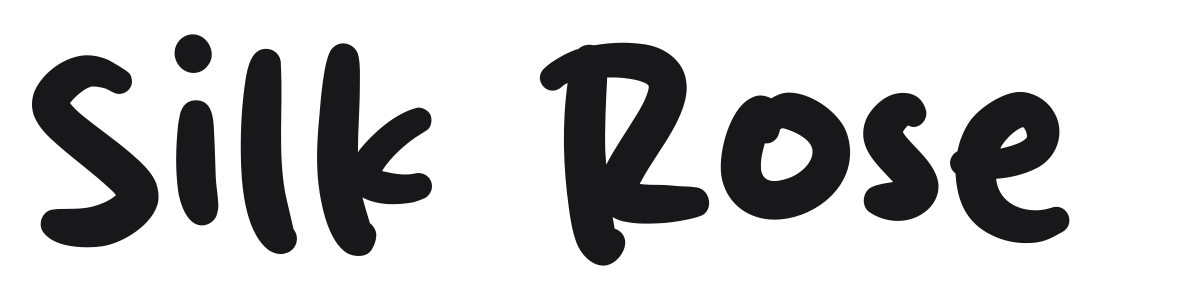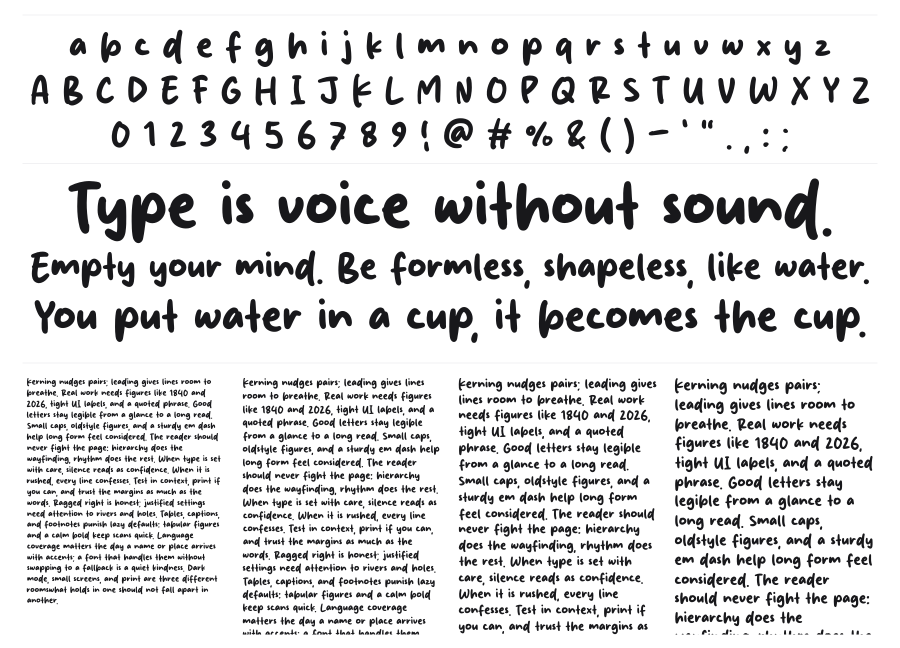
Silk Rose
Silk Rose is a bold casual brush script with chunky rounded strokes and a natural hand-painted rhythm. The thick monoweight forms feel energetic and approachable, landing somewhere between a marker and a paintbrush. It reads strongly at display sizes and carries a relaxed, contemporary warmth that suits lifestyle and consumer brands.